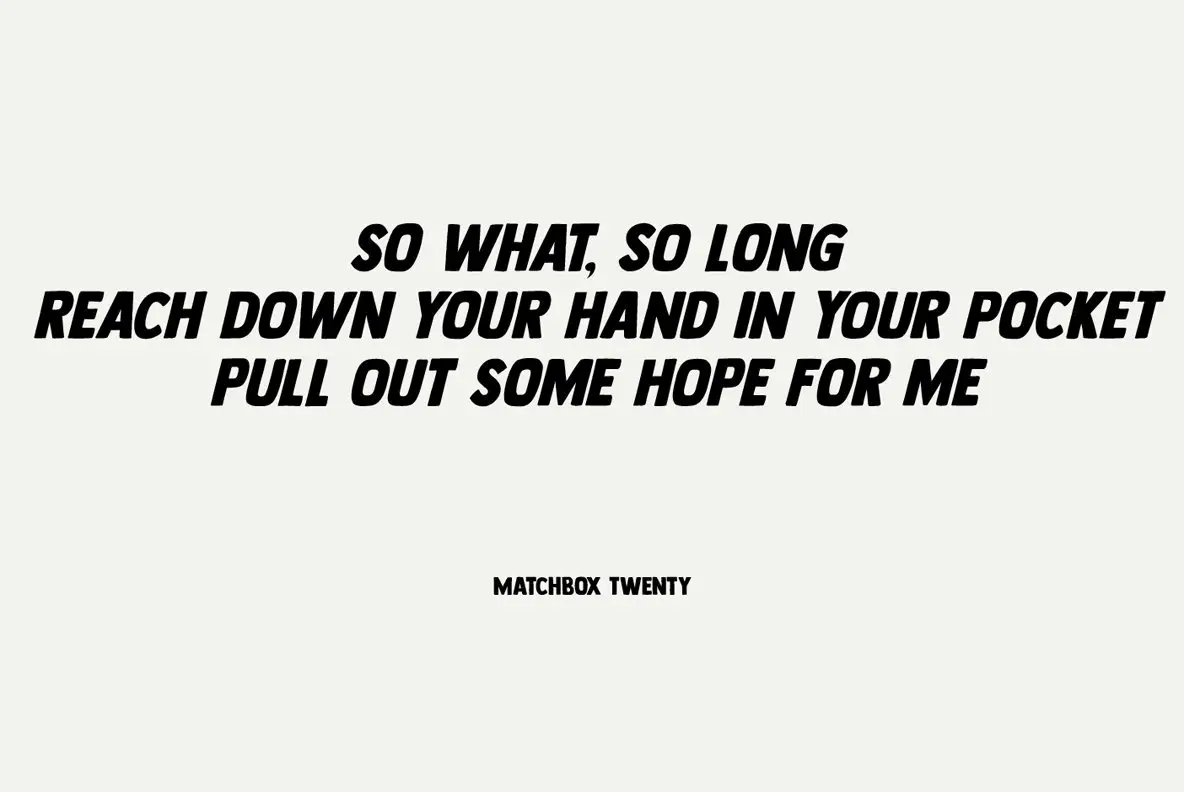
Longreach Font . longreach is a carefully crafted, handmade all caps display font. If you are going to use it. longreach is a carefully crafted, handmade all caps display font. thousands of designers (famous or not) use the image font detection system to find a font or similar free fonts. This is the demo, bare bones, version of longreach. longreach is a carefully crafted, handmade all caps display font. The glyphs are nice and crisp, with slightly rounded corners. It is free for personal use only. The glyphs are nice and crisp, with slightly rounded corners. free download of dk longreach font. The glyphs are nice and crisp, with slightly rounded corners. The glyphs are nice and crisp, with slightly rounded corners. longreach is a carefully crafted, handmade all caps display font.
The glyphs are nice and crisp, with slightly rounded corners. If you are going to use it. longreach is a carefully crafted, handmade all caps display font. longreach is a carefully crafted, handmade all caps display font. longreach is a carefully crafted, handmade all caps display font. This is the demo, bare bones, version of longreach. longreach is a carefully crafted, handmade all caps display font. It is free for personal use only. free download of dk longreach font. The glyphs are nice and crisp, with slightly rounded corners.
Longreach Font The glyphs are nice and crisp, with slightly rounded corners. It is free for personal use only. longreach is a carefully crafted, handmade all caps display font. The glyphs are nice and crisp, with slightly rounded corners. longreach is a carefully crafted, handmade all caps display font. The glyphs are nice and crisp, with slightly rounded corners. If you are going to use it. longreach is a carefully crafted, handmade all caps display font. The glyphs are nice and crisp, with slightly rounded corners. The glyphs are nice and crisp, with slightly rounded corners. thousands of designers (famous or not) use the image font detection system to find a font or similar free fonts. This is the demo, bare bones, version of longreach. longreach is a carefully crafted, handmade all caps display font. free download of dk longreach font.
DK Longreach Regular Font Longreach Font longreach is a carefully crafted, handmade all caps display font. If you are going to use it. free download of dk longreach font. thousands of designers (famous or not) use the image font detection system to find a font or similar free fonts. longreach is a carefully crafted, handmade all caps display font. longreach is. Longreach Font.
DK Longreach Font download free Longreach Font longreach is a carefully crafted, handmade all caps display font. longreach is a carefully crafted, handmade all caps display font. The glyphs are nice and crisp, with slightly rounded corners. thousands of designers (famous or not) use the image font detection system to find a font or similar free fonts. The glyphs are nice and crisp, with. Longreach Font.
Longreach Font YouWorkForThem Longreach Font longreach is a carefully crafted, handmade all caps display font. If you are going to use it. thousands of designers (famous or not) use the image font detection system to find a font or similar free fonts. longreach is a carefully crafted, handmade all caps display font. The glyphs are nice and crisp, with slightly rounded corners.. Longreach Font.
Longreach Font YouWorkForThem Longreach Font The glyphs are nice and crisp, with slightly rounded corners. The glyphs are nice and crisp, with slightly rounded corners. If you are going to use it. longreach is a carefully crafted, handmade all caps display font. The glyphs are nice and crisp, with slightly rounded corners. thousands of designers (famous or not) use the image font detection. Longreach Font.
Download free DK Longreach font, free DK Longreach.otf Regular font for Windows Longreach Font The glyphs are nice and crisp, with slightly rounded corners. longreach is a carefully crafted, handmade all caps display font. free download of dk longreach font. The glyphs are nice and crisp, with slightly rounded corners. longreach is a carefully crafted, handmade all caps display font. This is the demo, bare bones, version of longreach. Longreach Font.